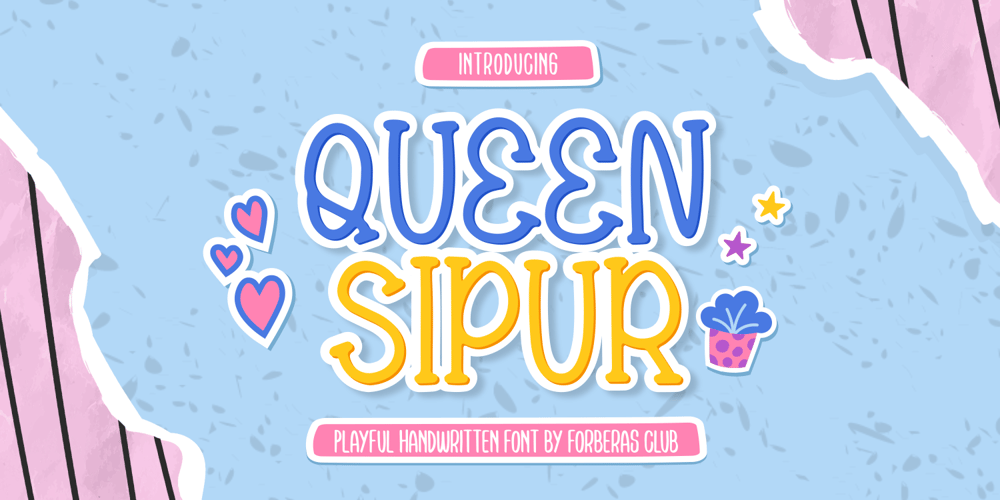
Queen Sipur
Queen Sipur font
Queen Sipur Font Family was designed by ANGGI HERMAWAN and published by Forberas Club. Queen Sipur contains 1 styles and family package options. Queen Sipur is pretty style modern font. Nice to application for cute, funny, playful, cartoon, birthday and cover book.